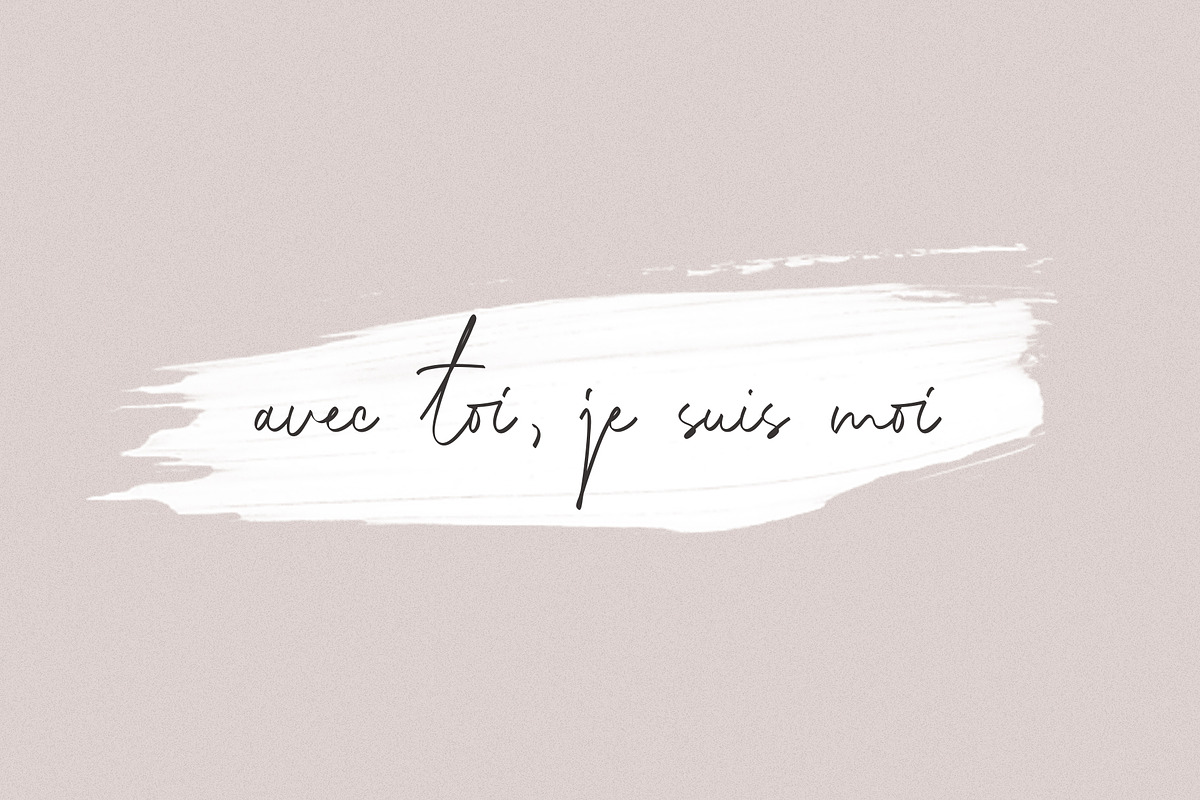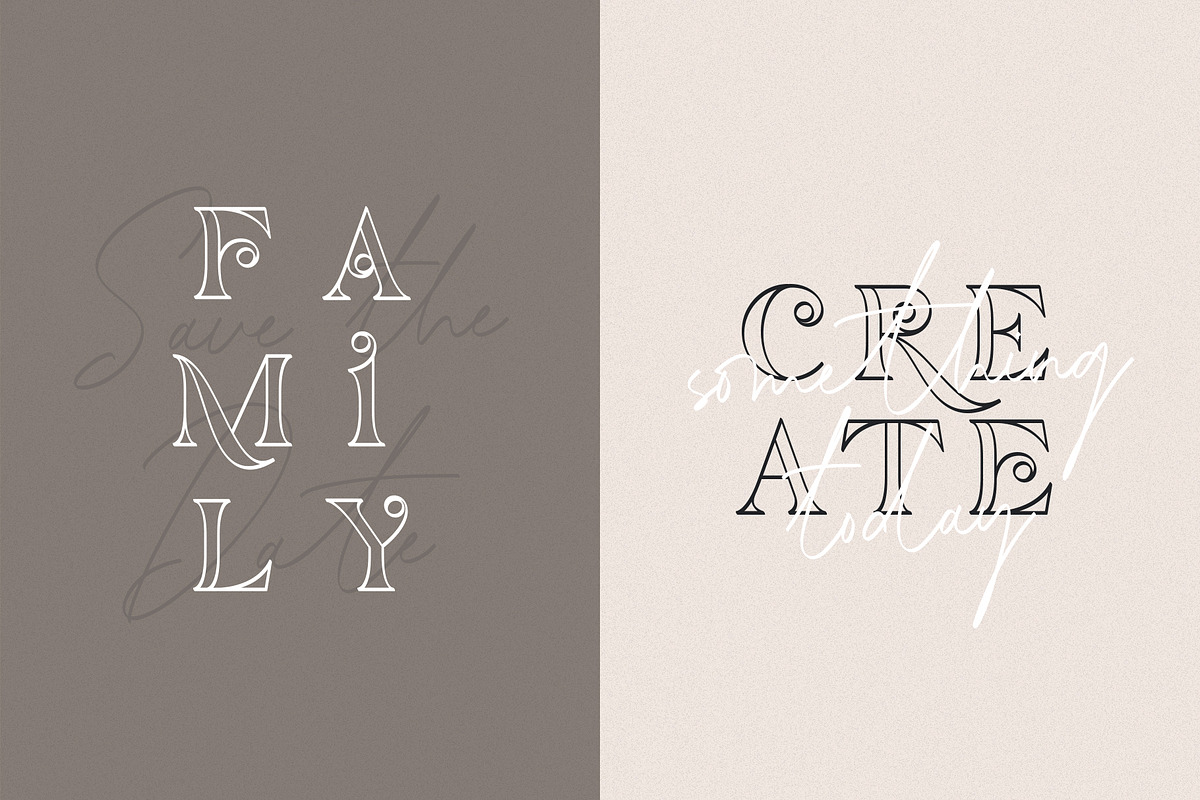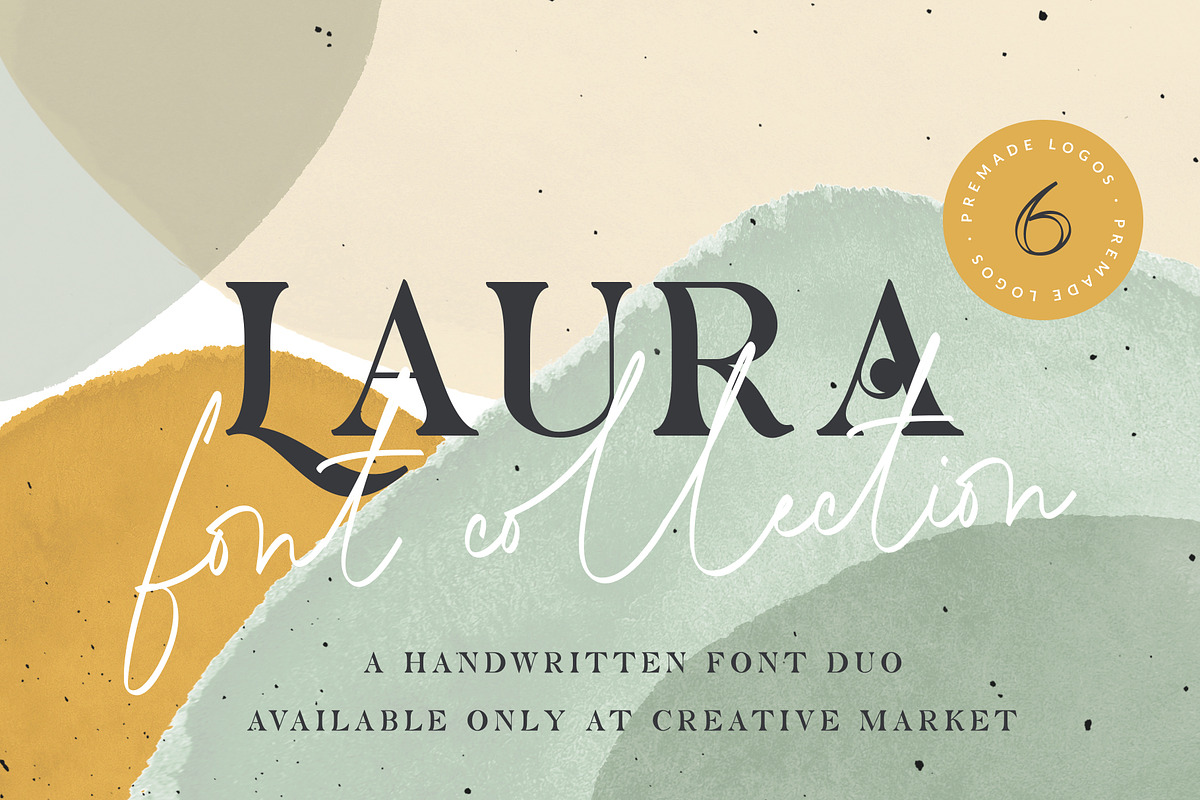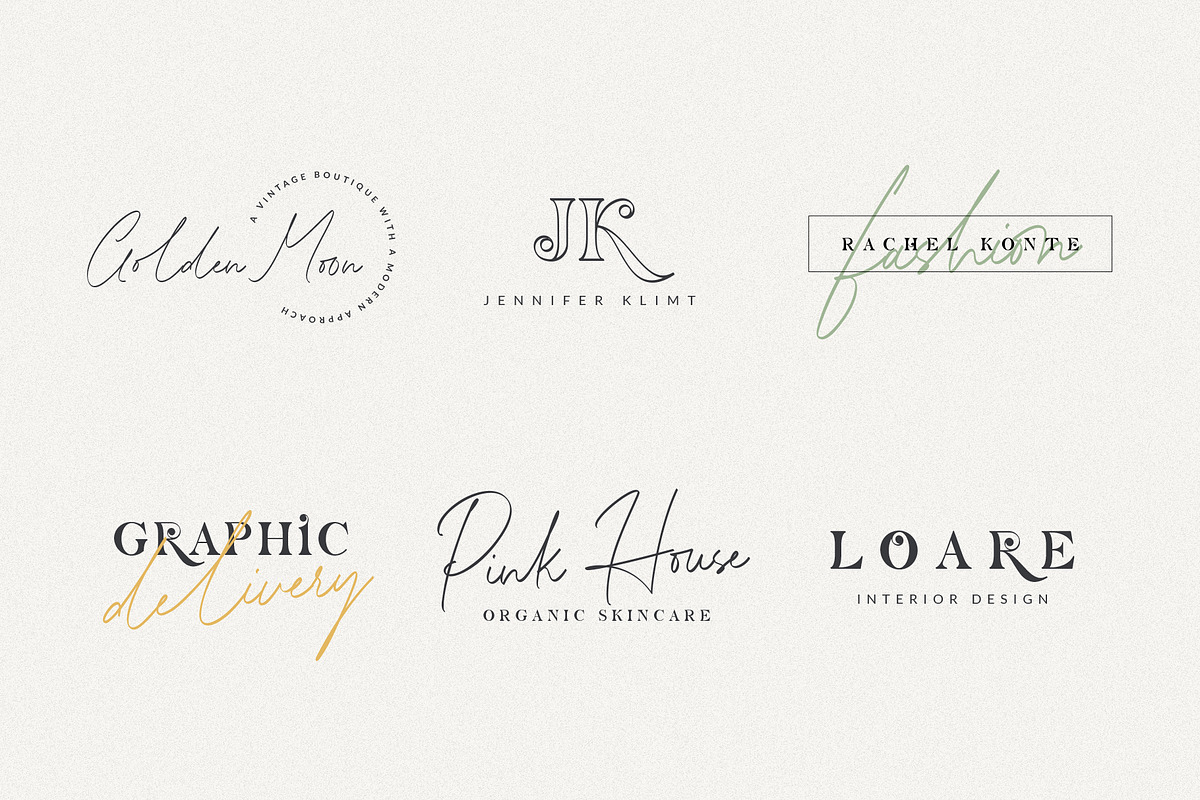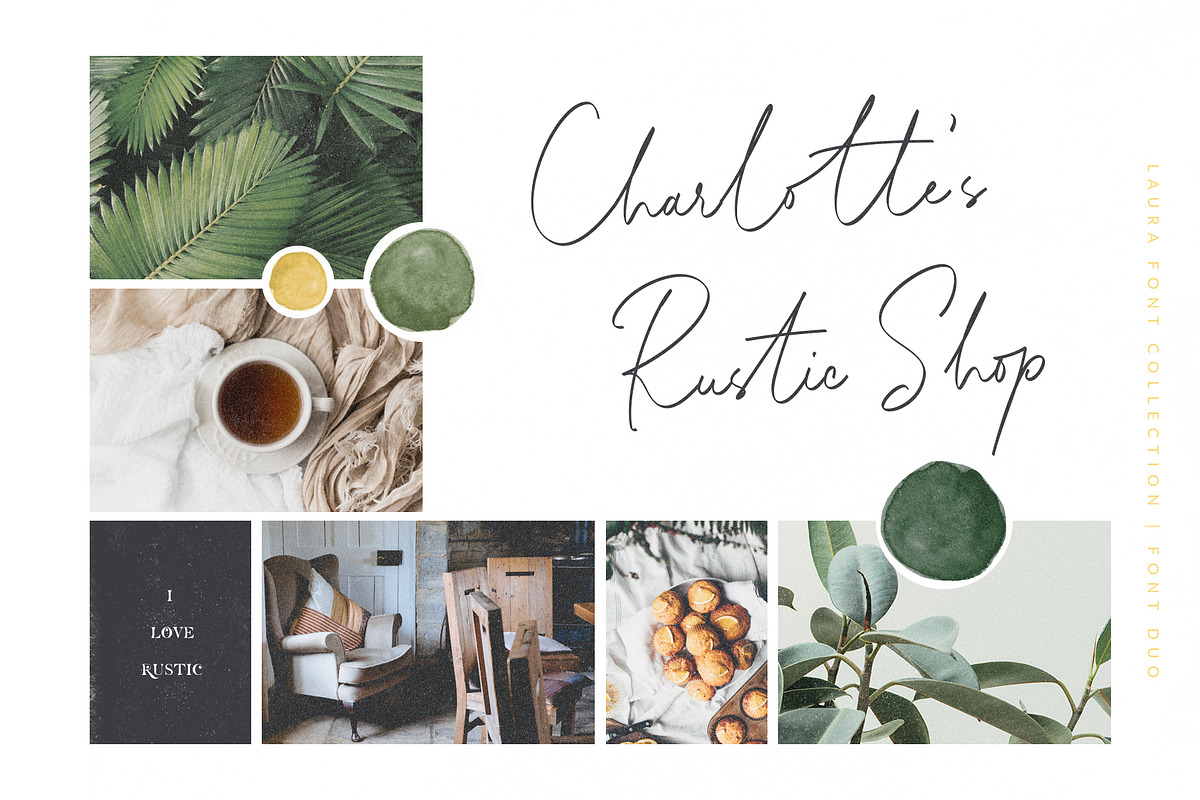
Laura - Font Collection & Logos
Laura Font Collection is a collection of 4 fonts: 2 serif fonts and 2 handwritten. I started designing the slanted handwritten, it was so cool taking my pens out and writing on paper, it felt so natural. After that I decided that it will be very nice to transform it into a font. When everything was ready I saw that something is missing. I knew exactly what, that nice serif that to pair it with. This is the moment when Laura Font Collection was born.
Laura Font Collection comes with upper and lowercase Basic Characters, Numbers, Marks and Punctuation, Diacritics for Western and Central European Languages, and a lot of ligatures for the handwritten one.
Laura Serif in two styles: Line and Filled.
Laura Handwritten in two styles: Regular and Slanted.